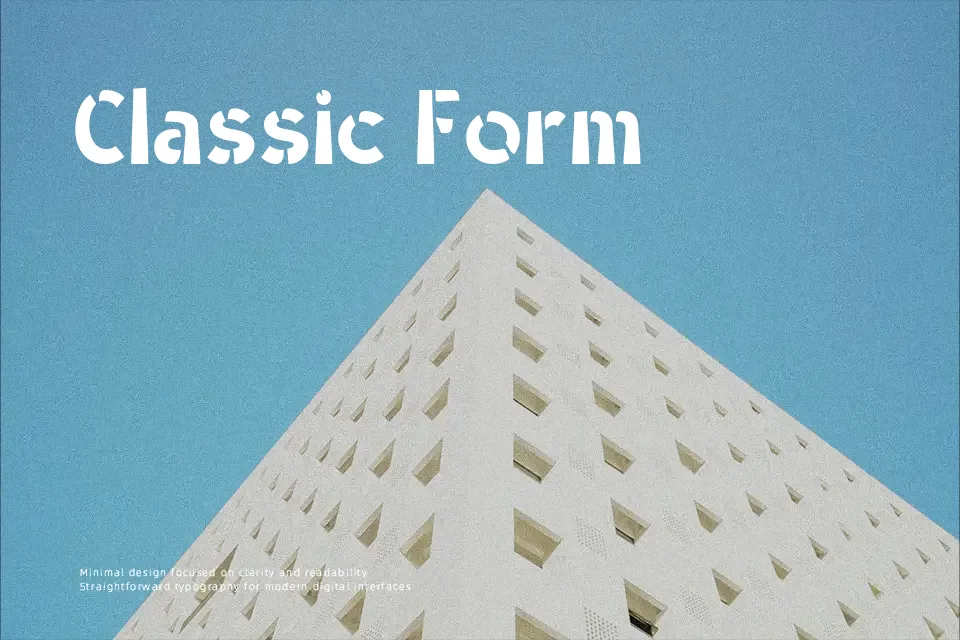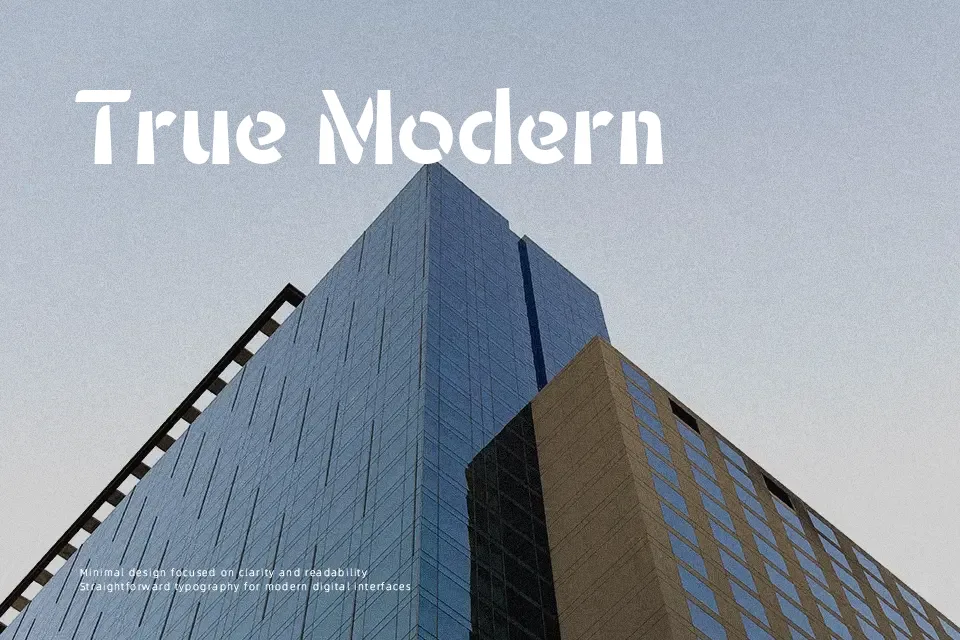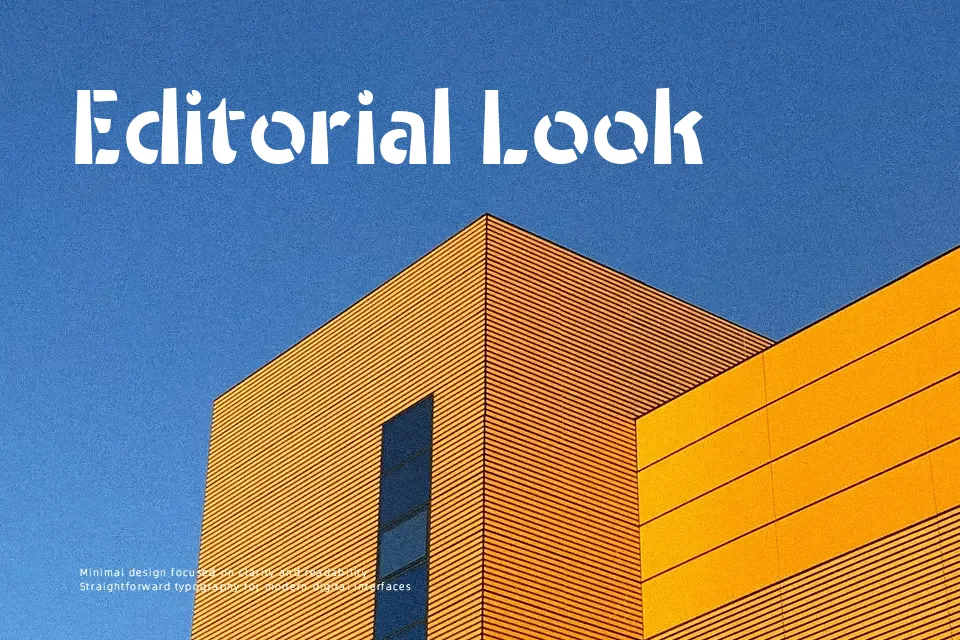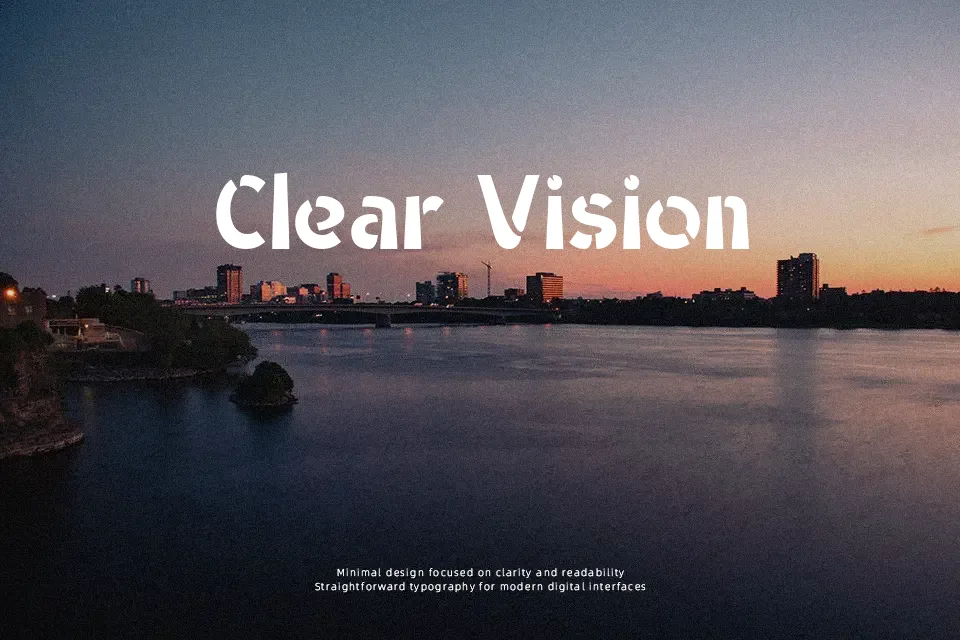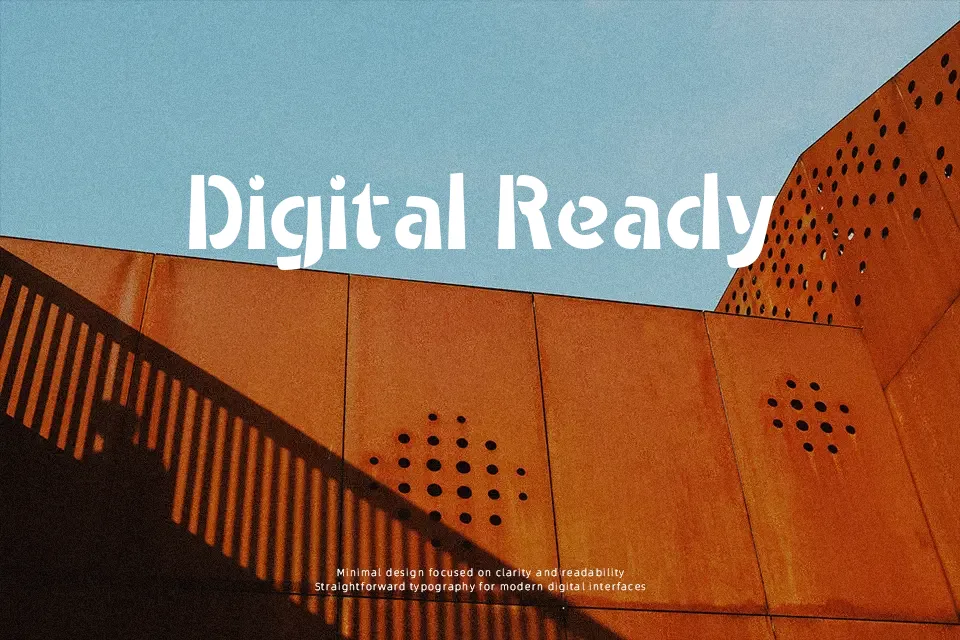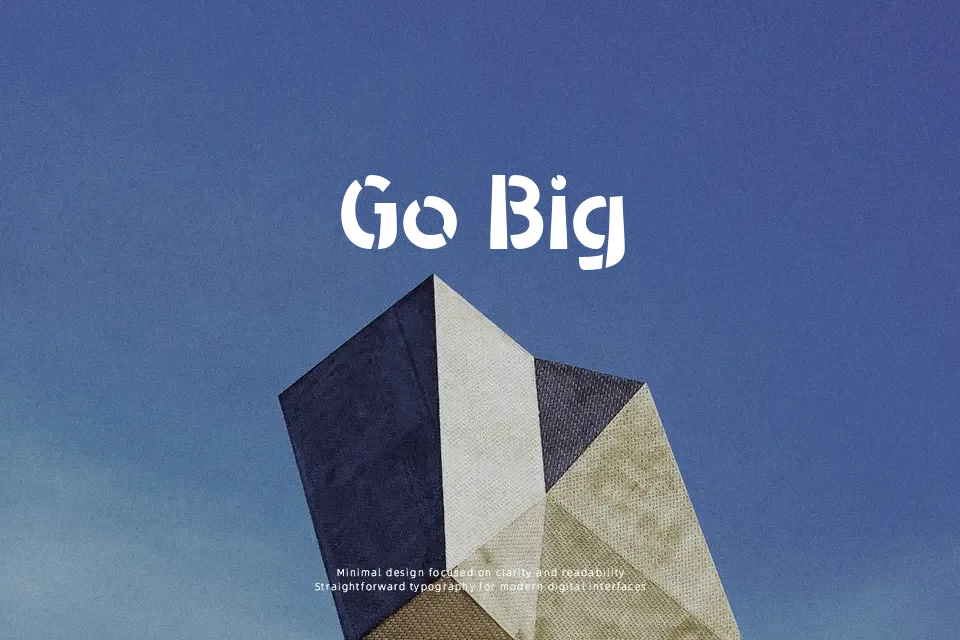
Qawine Again Font
Designed by Alit Design
An impactful outdoor advertisement or commanding apparel graphic requires the industrial strength provided by Qawine Again Font. The letterforms are constructed with heavy blocky strokes and deliberate stencil breaks that create a rugged military rhythm across the baseline. Its wide proportions and tight letter spacing maximize visual impact in uppercase-heavy layouts. The rigid geometric cuts help maintain clarity in larger headlines, giving the typography a highly structured and disciplined appearance. However, the broken strokes and dense forms reduce comfort during extended reading, making the design less suitable for continuous body copy. This typeface performs exceptionally well when deployed in short punchy titles where its aggressive weight and bold character can fully dominate the canvas.
military apparel graphics
rugged product packaging
fitness brand logos
bold event posters
continuous body text
corporate annual reports
Perfect for branding, fashion, and headline, with a bold and display style.